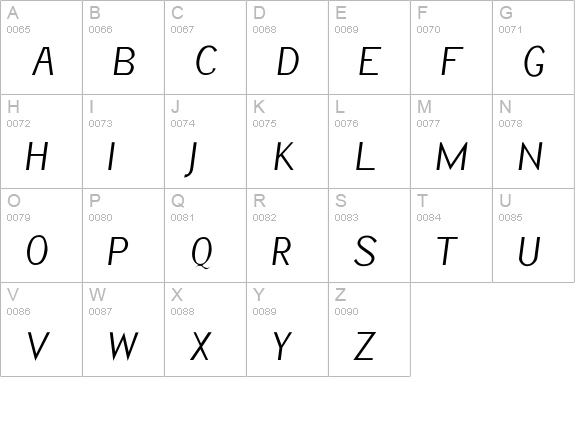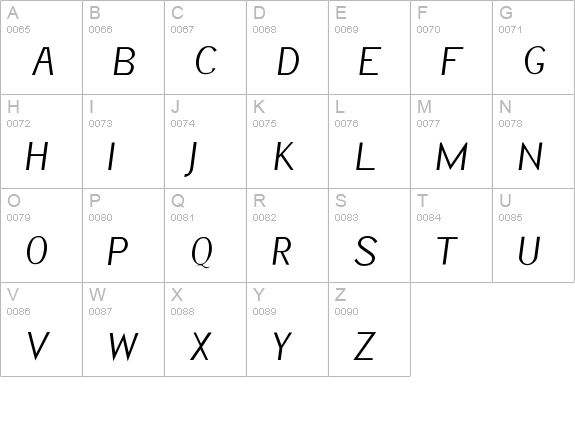
IvanholeOblique Font Details
Introducing IvanholeOblique, a captivating and versatile font that will add a touch of elegance and sophistication to any design project. With its unique and distinctive oblique style, IvanholeOblique is perfect for creating eye-catching headlines, logos, branding materials, and so much more. This font boasts a harmonious balance between sharp angles and smooth curves, creating a visually pleasing and modern look. Its sleek and sleek design makes it ideal for both digital and print applications, ensuring that your message stands out in any medium. But what truly sets IvanholeOblique apart is the fact that it is available for free download at FontsMarket.com. Yes, you read that right! This incredible font is freely accessible, allowing designers and creatives alike to enjoy its beauty and versatility without any financial constraints. Whether you are a professional designer or a creative enthusiast, IvanholeOblique is a must-have addition to your font collection. Its seamless integration into various design projects, coupled with its availability as a free download, makes it a valuable and practical choice for any creative endeavor. So why wait? Experience the magic of IvanholeOblique today by visiting FontsMarket.com and downloading this stunning font for free. Unleash your creativity and watch as your designs come to life with the elegance and charm of IvanholeOblique.